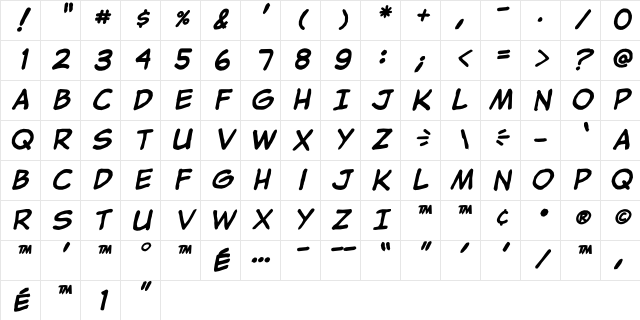
jibbajabba ExtraBold Italic
Foundry: Jason Arthur
Designer: Jason L. Arthur
Design Context for jibbajabba
jibbajabba is a composed and adaptable typeface that performs quietly and consistently across a wide range of design contexts. The slanted form adds forward momentum and visual energy. Its bold stroke weight gives it real presence on the page.
Pro Tip: Use jibbajabba for emphasis, pull quotes, and subheadings where its slanted energy can add rhythm to the layout.
Who designed the jibbajabba ExtraBold Italic font?